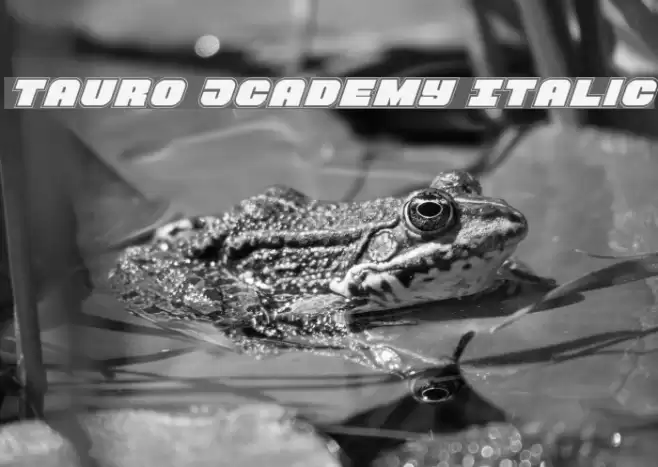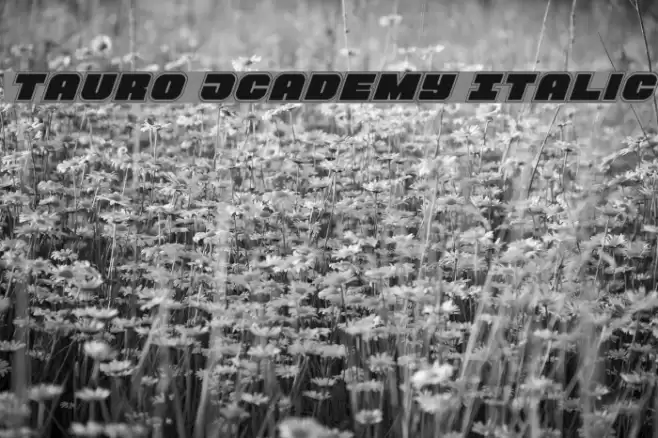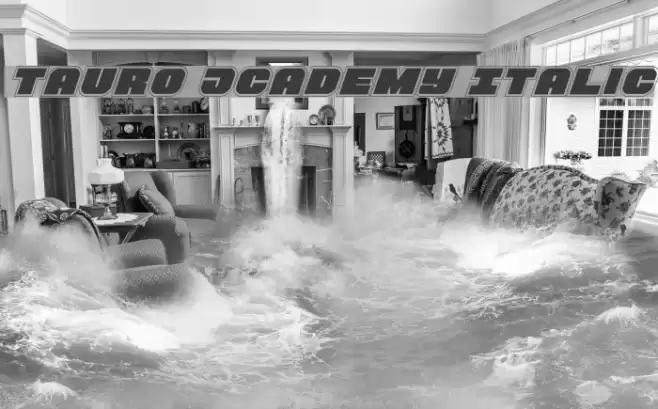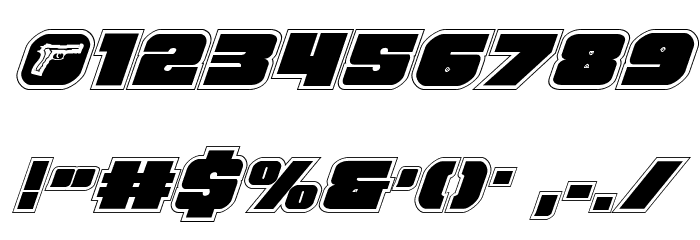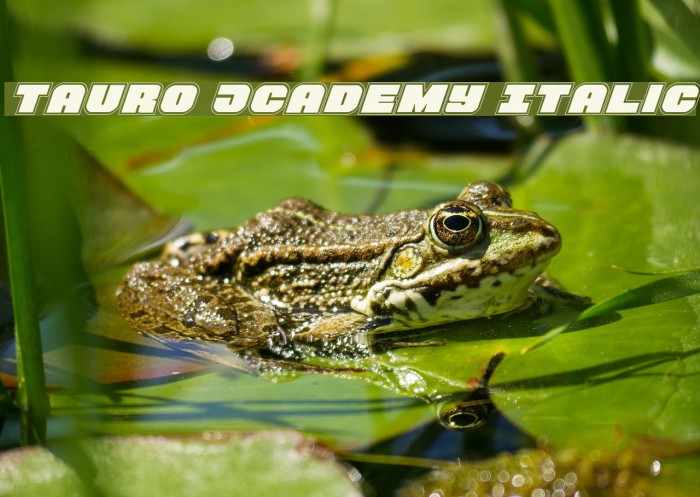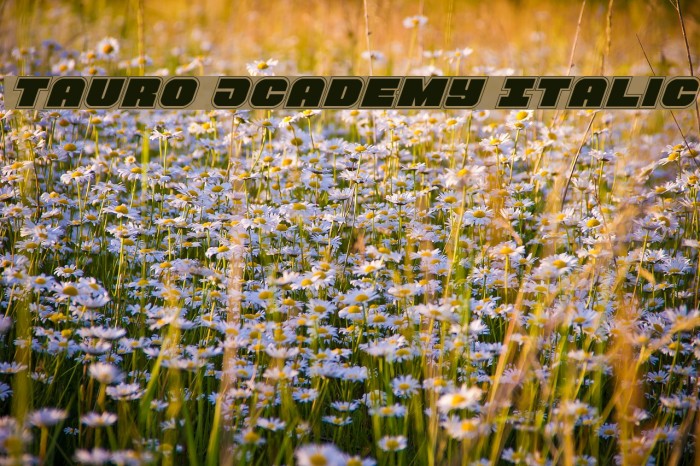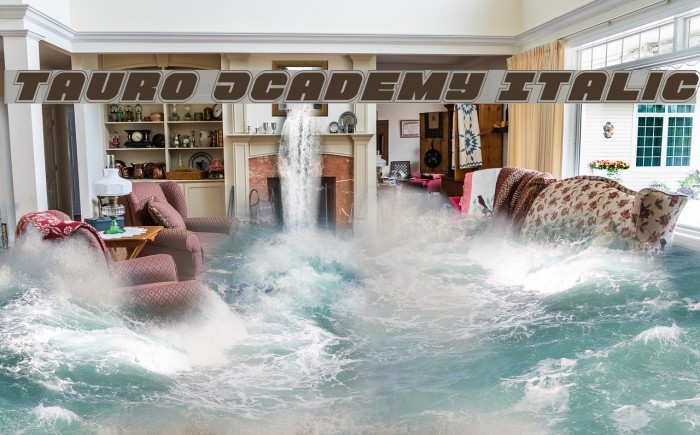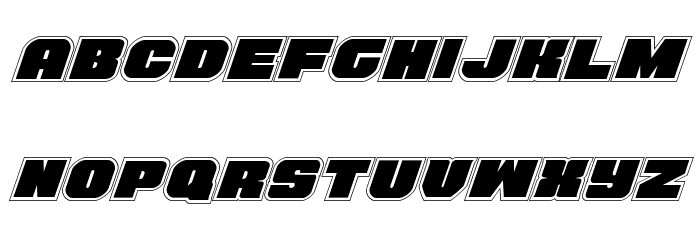
Tauro Academy Italic Font
Tauro Academy Italic Description
This font features a bold, dynamic style with a strong presence. The characters are designed with a thick, blocky appearance, giving them a robust and impactful look. The edges are slightly rounded, adding a touch of softness to the otherwise solid forms. The font includes both uppercase and lowercase letters, as well as numbers and a variety of special characters. The overall design is modern and eye-catching, suitable for making a statement in any project.
A bold, blocky font with a modern and impactful style from Uncategorized fonts.
- Proposed Projects: Ideal for sports branding, posters, headlines, and any project requiring a strong visual impact.